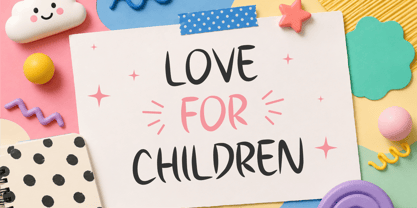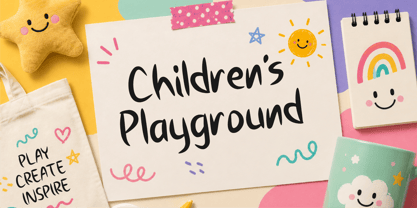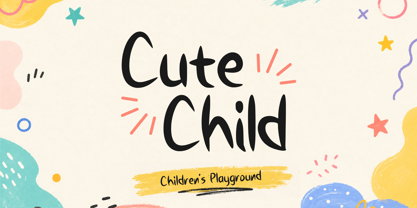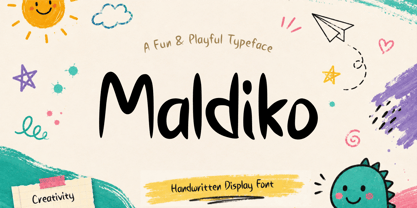
Maldiko
por Arif Novianto
La familia tipográfica Maldiko fue diseñada por Arif Novianto y publicada por Arif Novianto. Maldiko contiene 1 estilos. Más información sobre esta familia
Maldiko – Playful Handwritten Display Font
Maldiko is a fun and expressive handwritten display font designed to bring a playful, friendly, and creative personality to your designs. With its bold organic strokes, quirky letterforms, and casual handwritten feel, Maldiko adds a warm and cheerful touch to any project.
Perfect for branding, logos, packaging, quotes, posters, social media content, children’s designs, invitations, merchandise, stationery, and creative advertising. Its distinctive style works especially well for projects that need a youthful, handmade, and approachable aesthetic.
Maldiko includes uppercase, lowercase, numbers, and punctuation, making it versatile and easy to use for both short headlines and expressive display typography.
Maldiko is a great choice when you want your design to feel fun, bold, personal, and full of character.
Diseñadores: Arif Novianto
Fundición: Arif Novianto